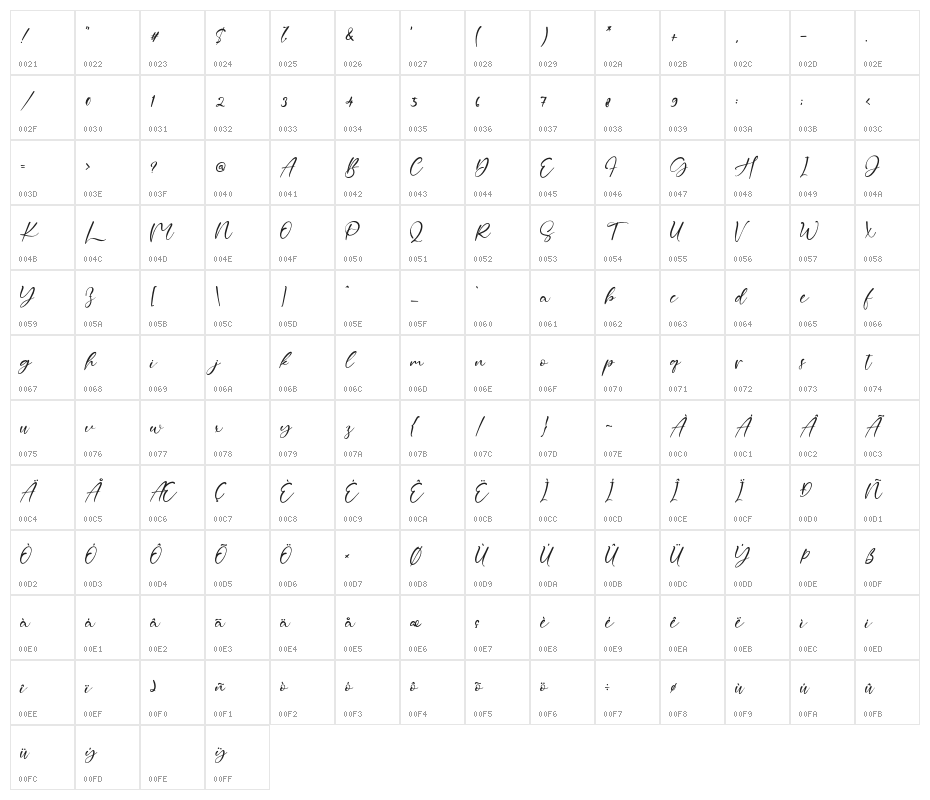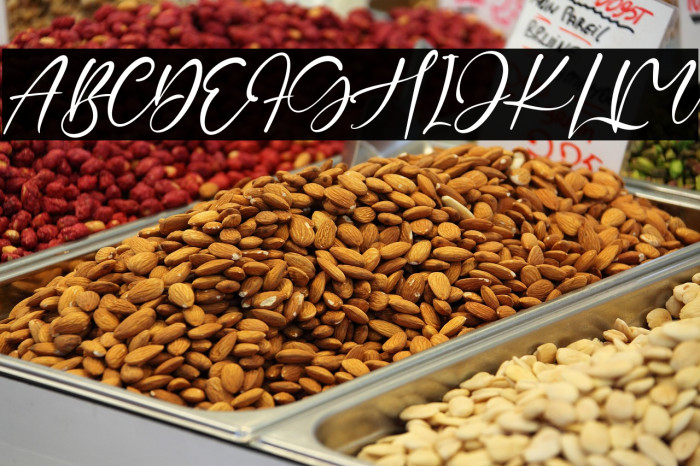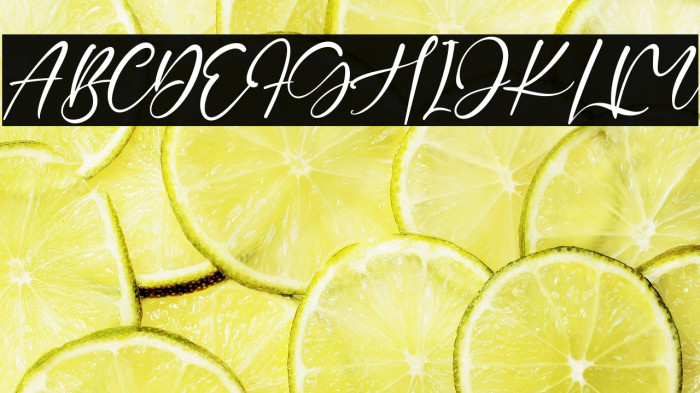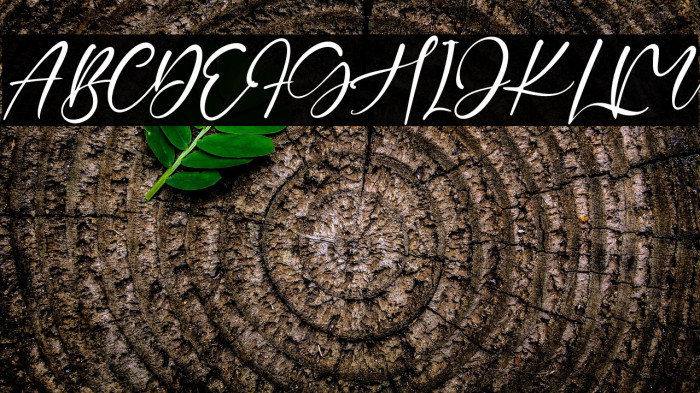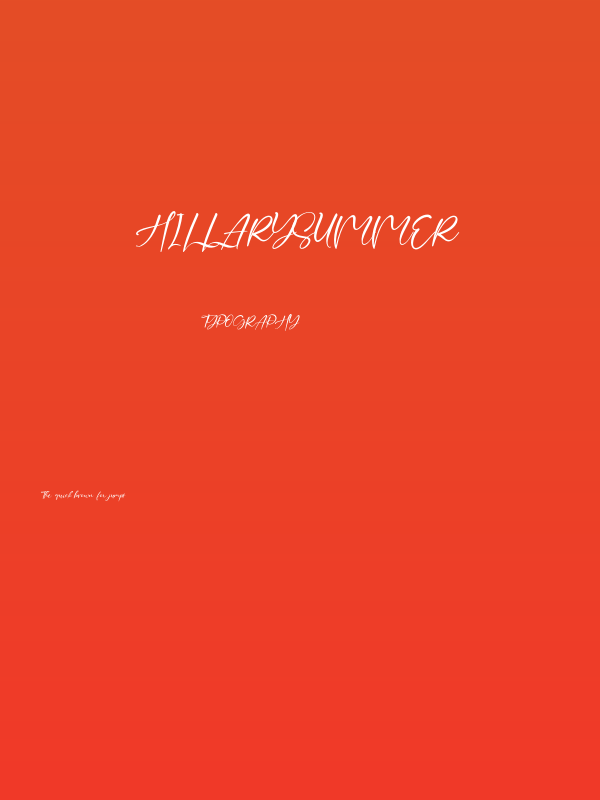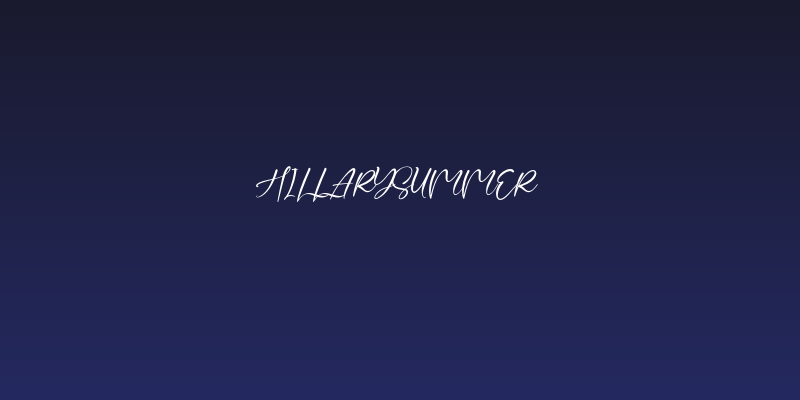
HillarySummer Font
HillarySummer Description
This font exudes elegance and fluidity, characterized by its cursive, handwritten style. The letters are connected with smooth, flowing strokes, giving it a sophisticated and graceful appearance. The uppercase letters are bold and prominent, while the lowercase letters maintain a delicate and consistent flow. The numerals and special characters complement the overall style, maintaining the same fluidity and elegance. This font is ideal for projects that require a personal touch, such as invitations, greeting cards, and branding materials. Its artistic flair makes it suitable for creative and decorative purposes.